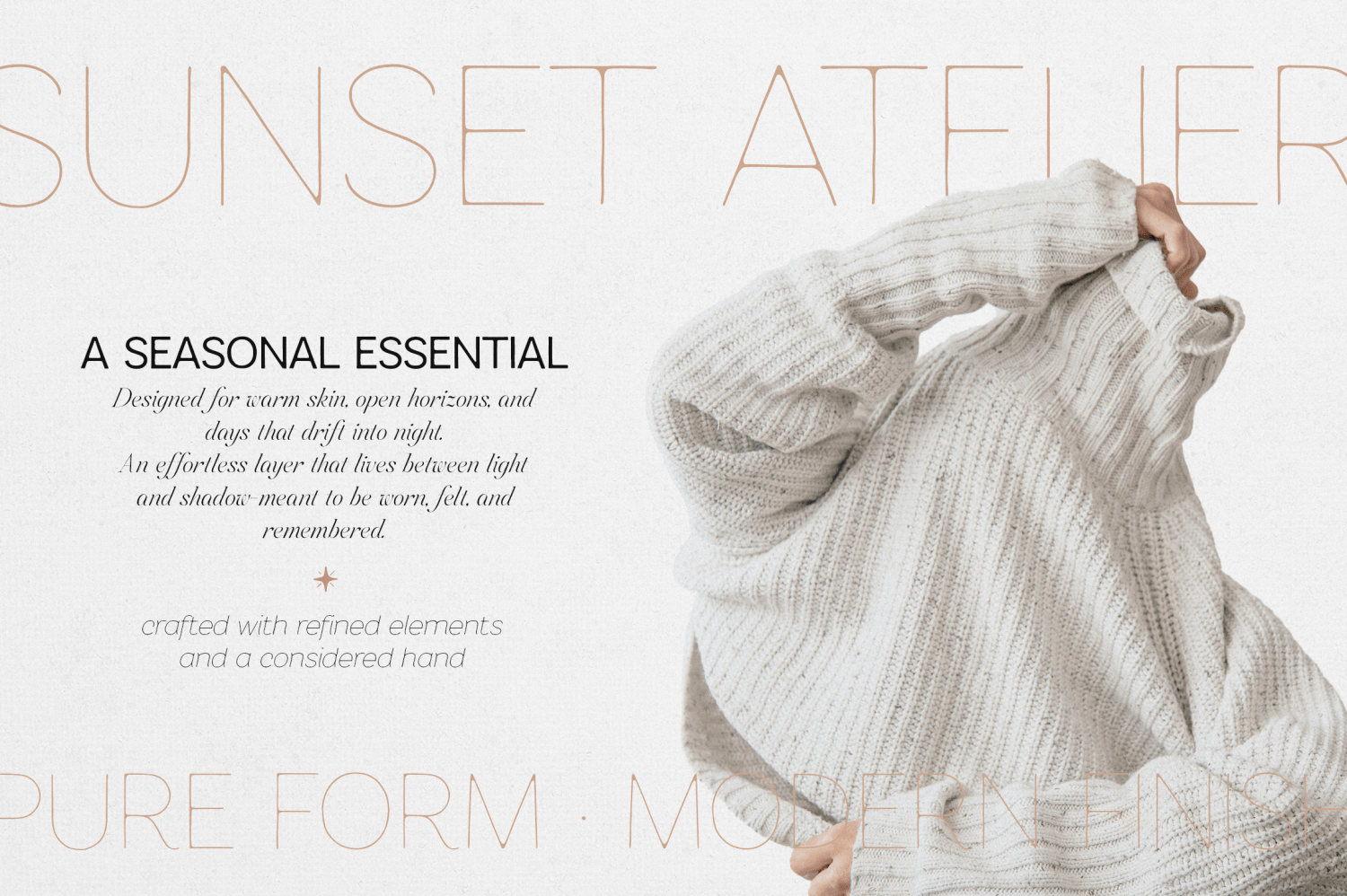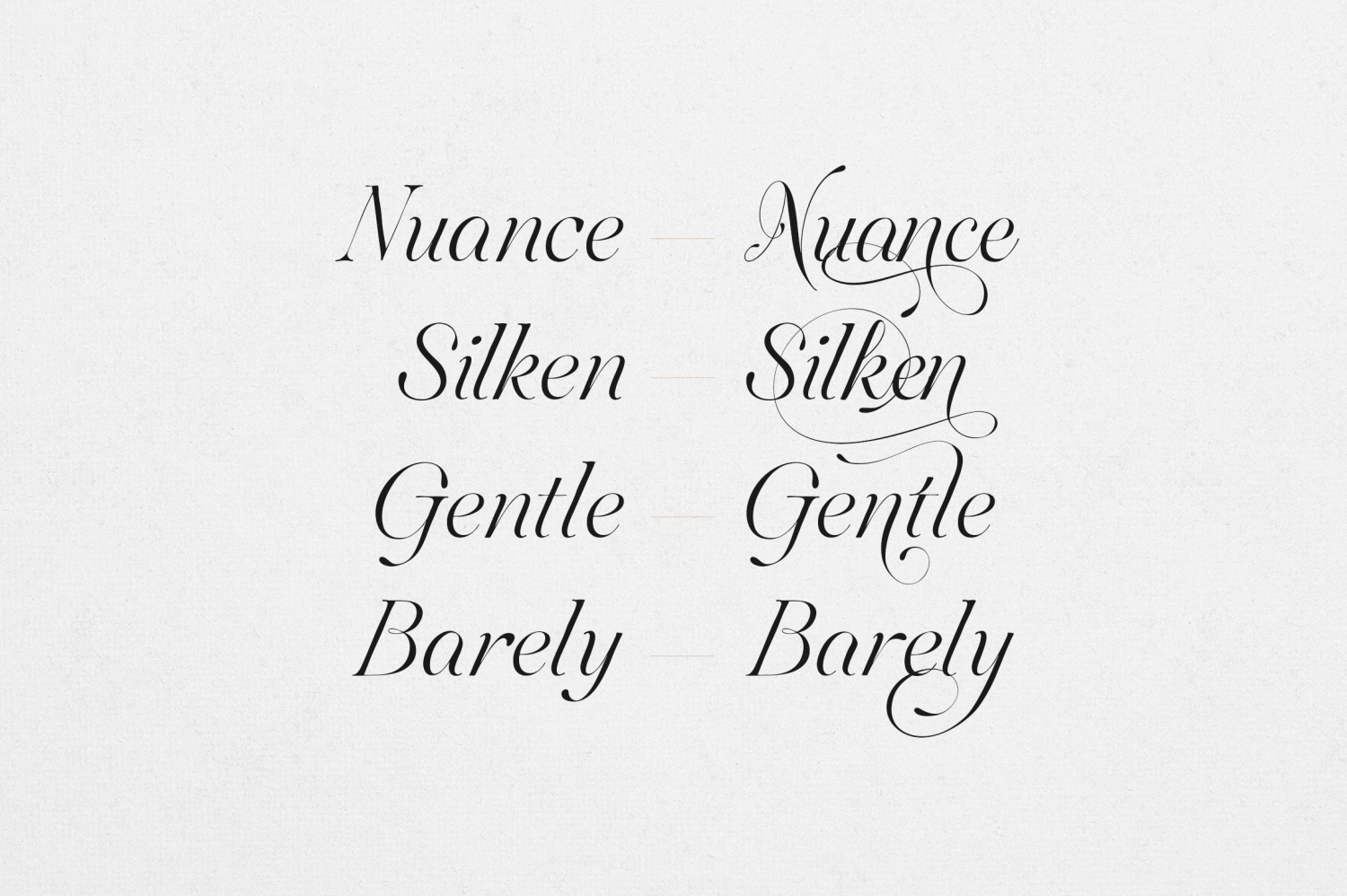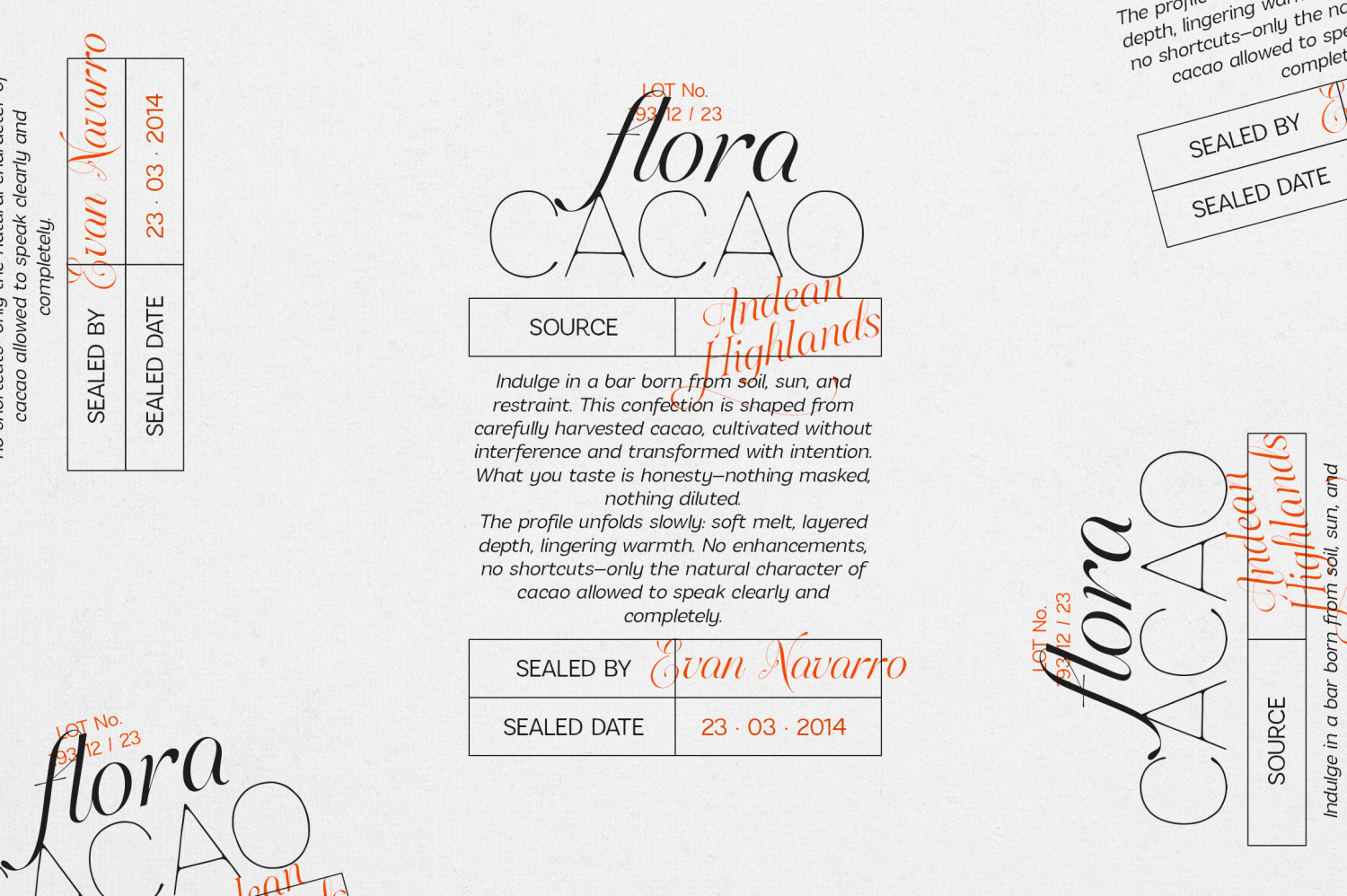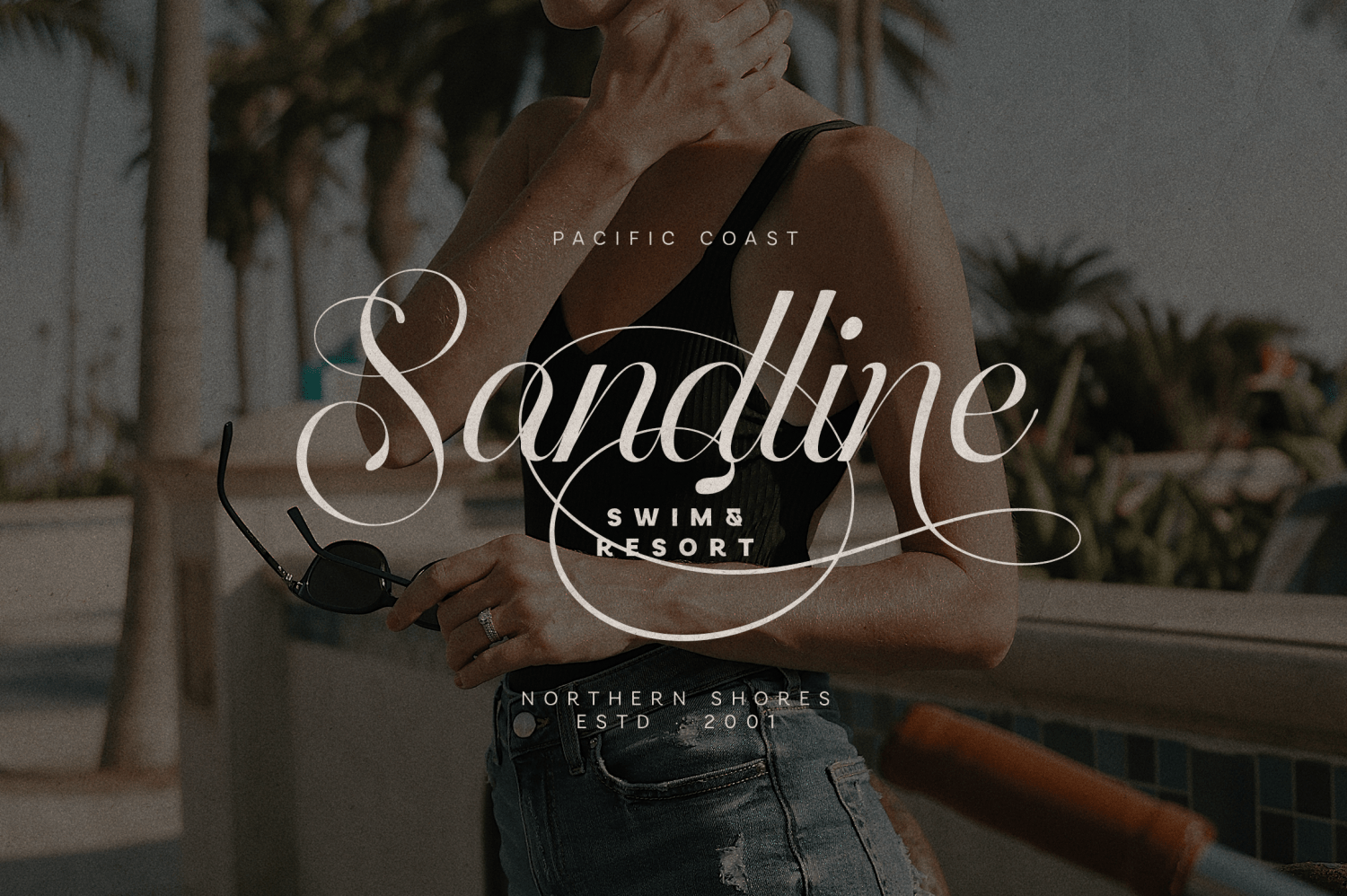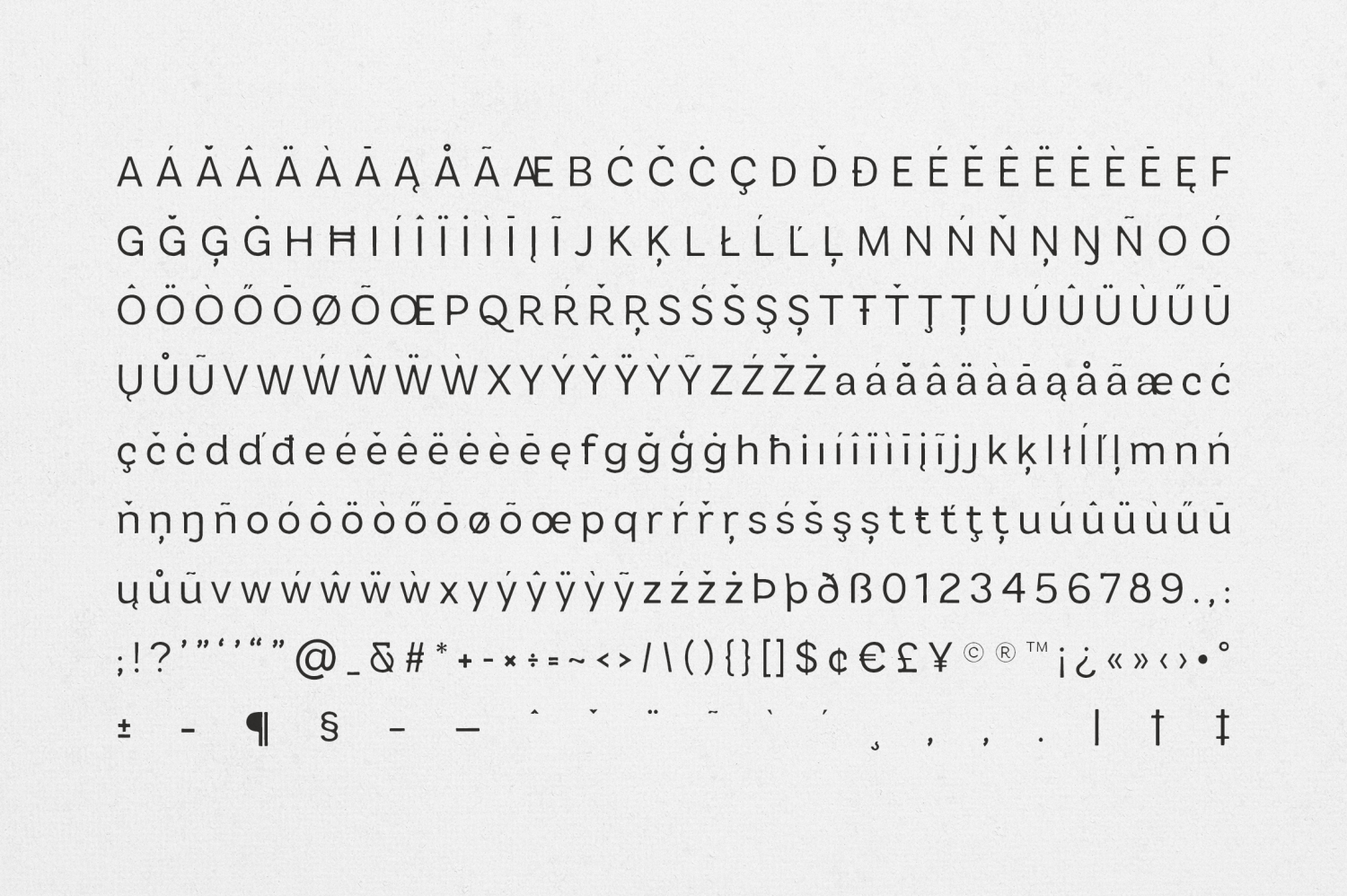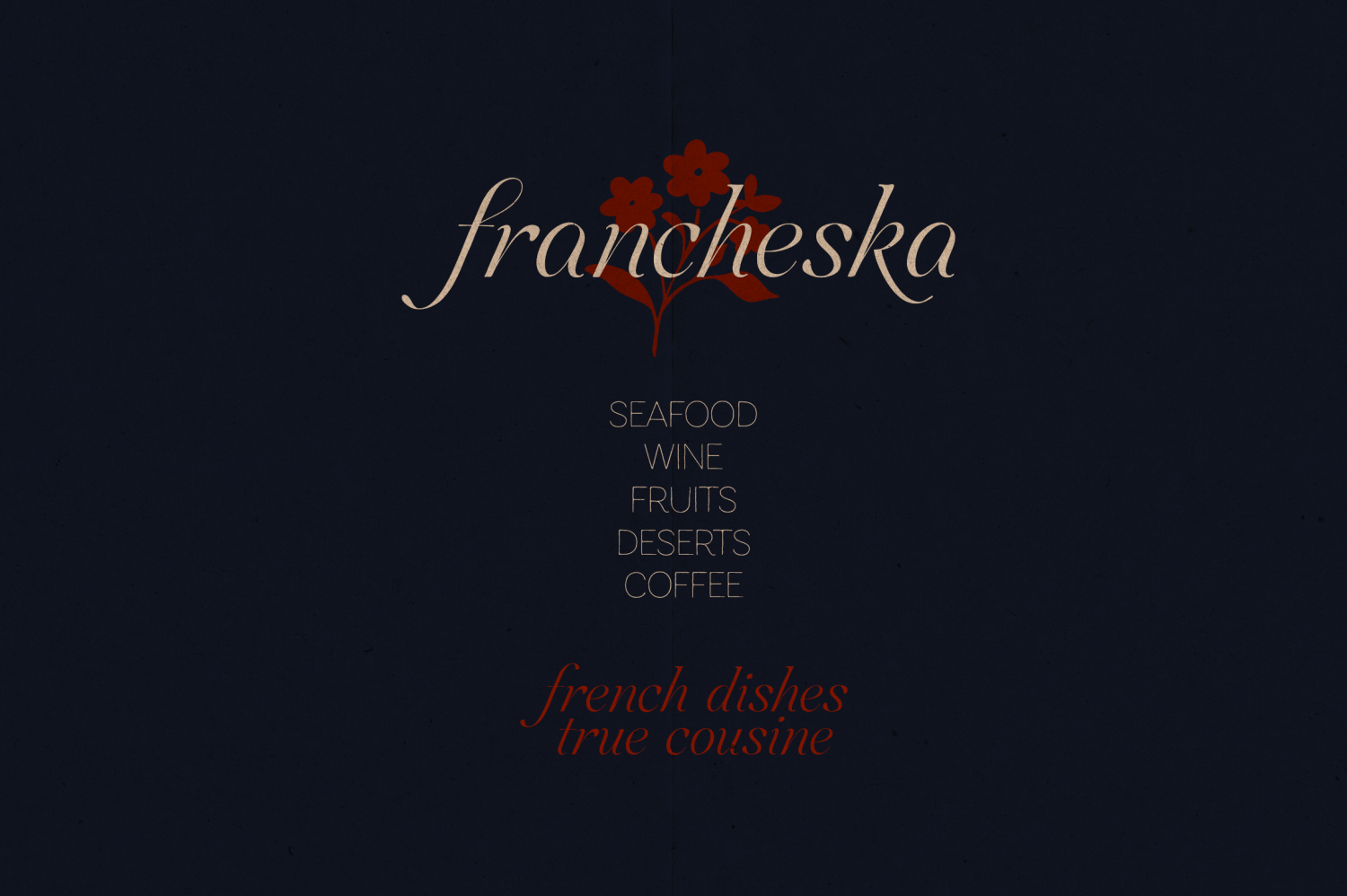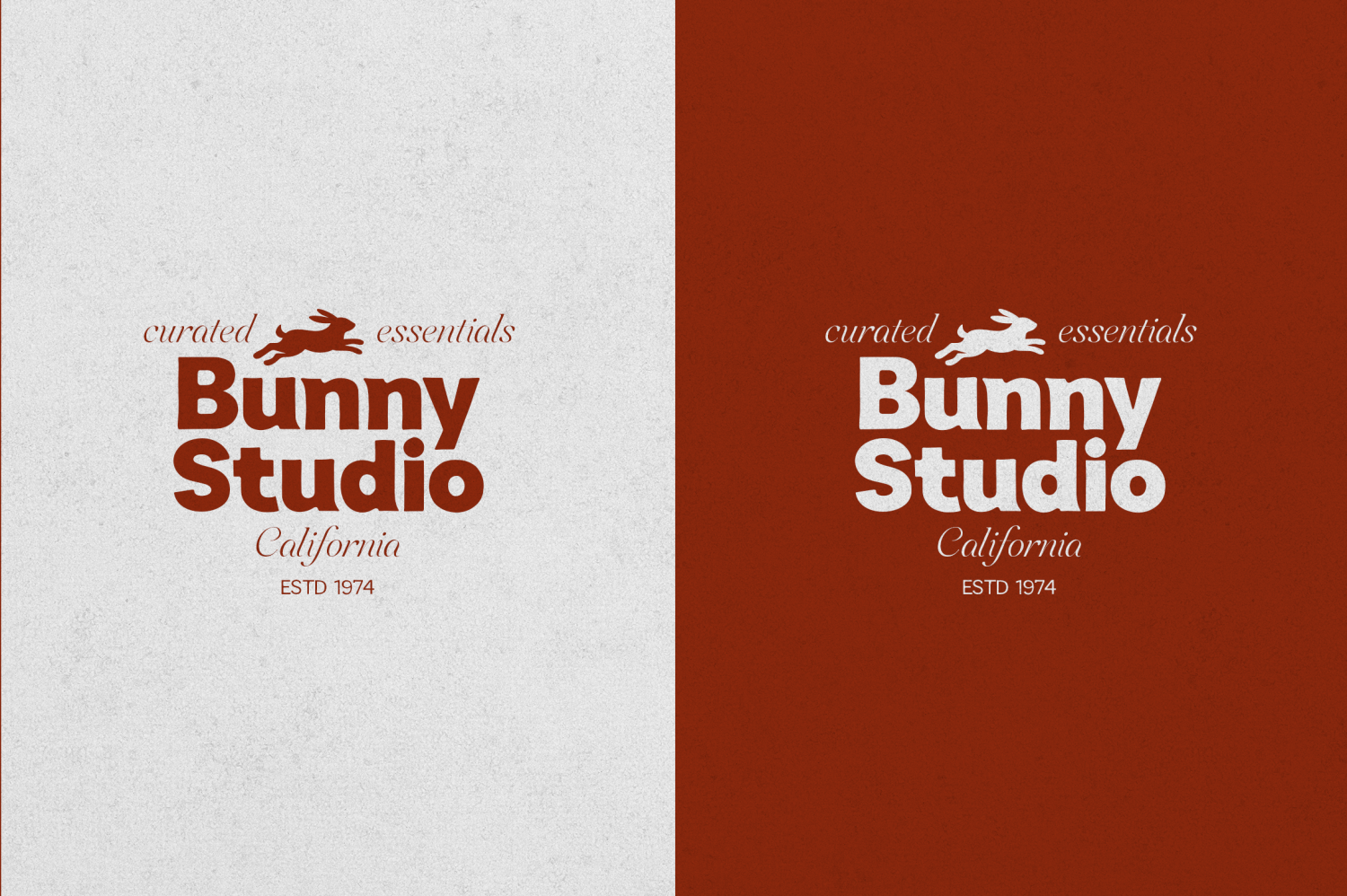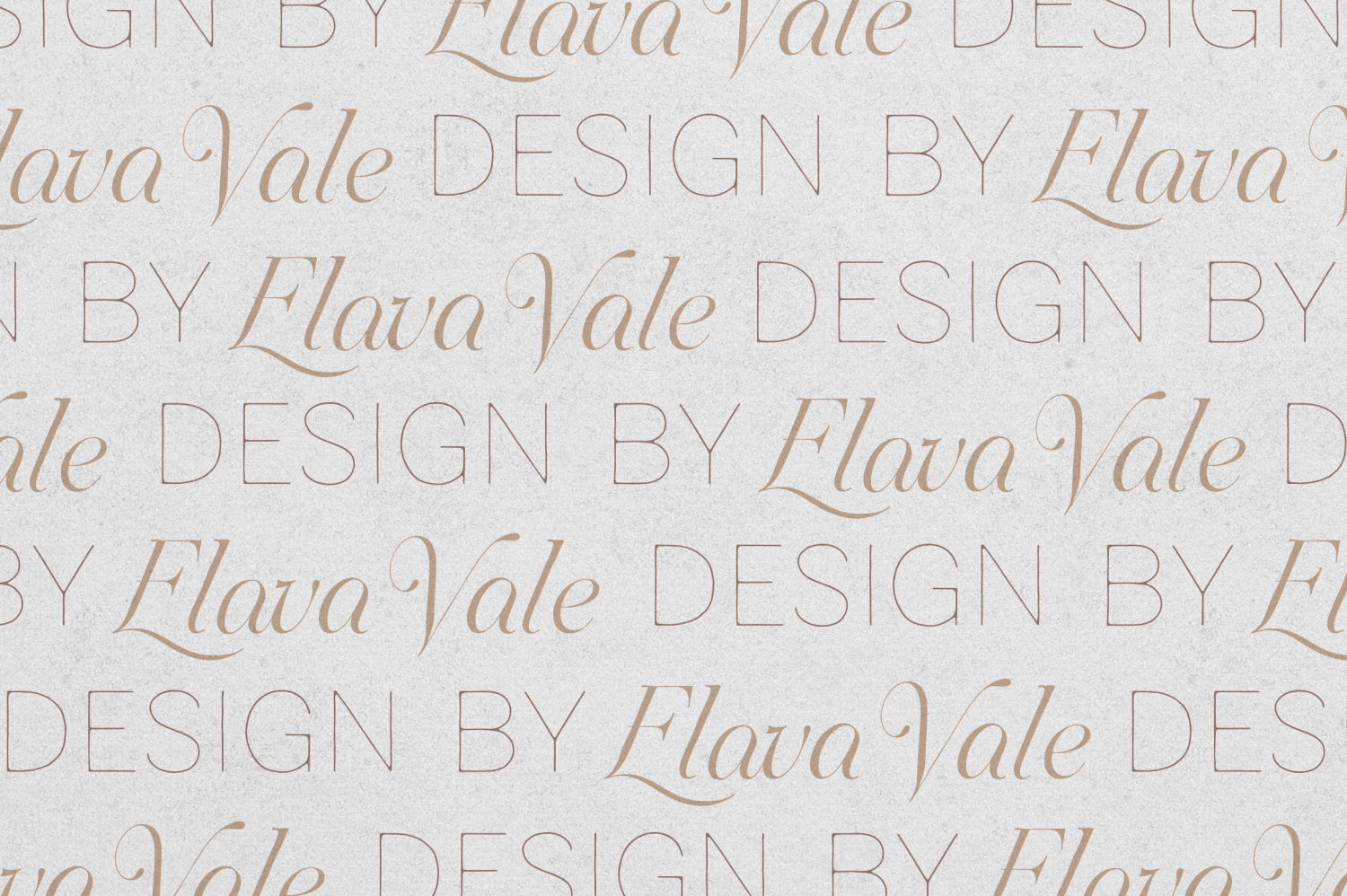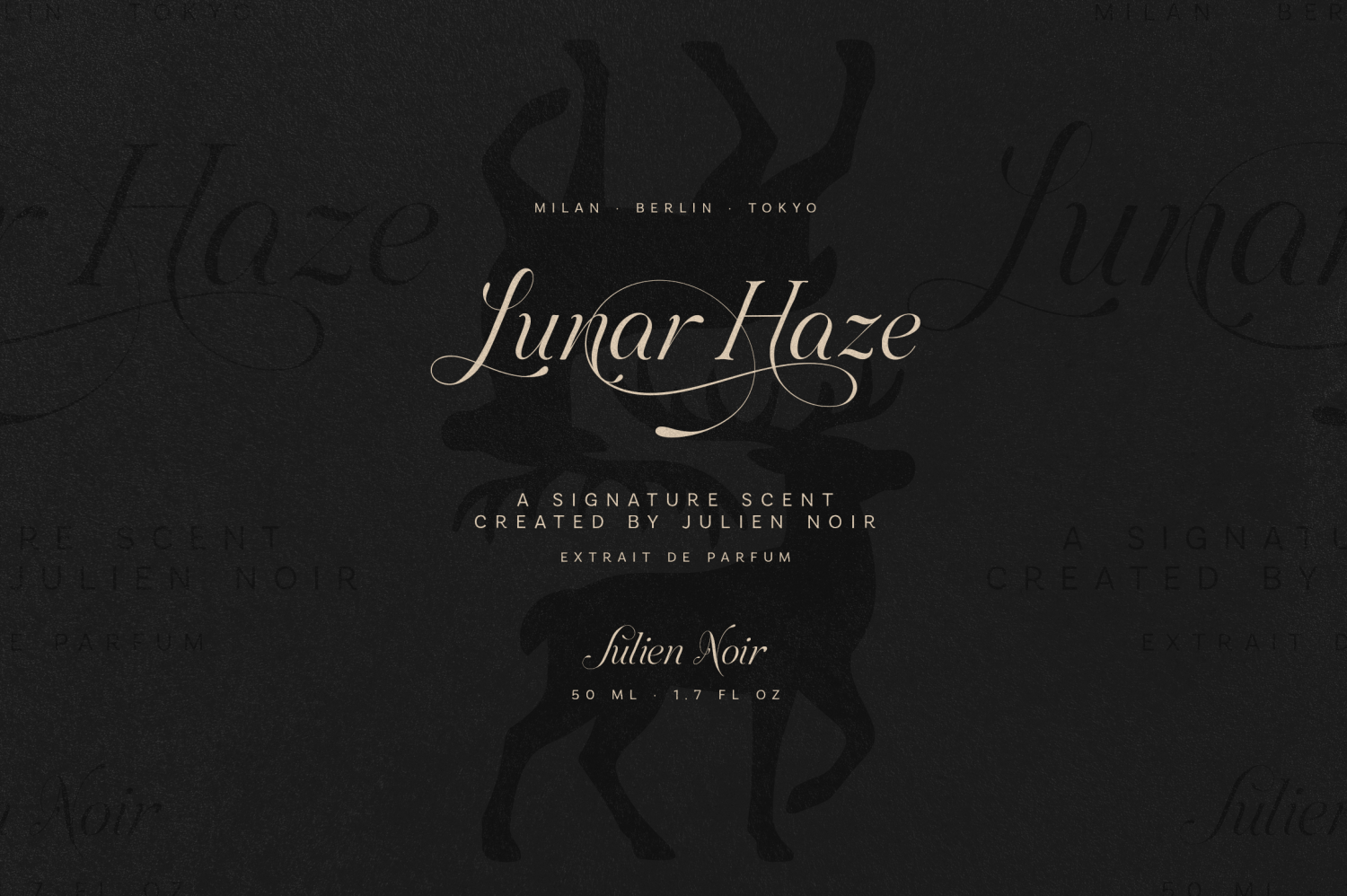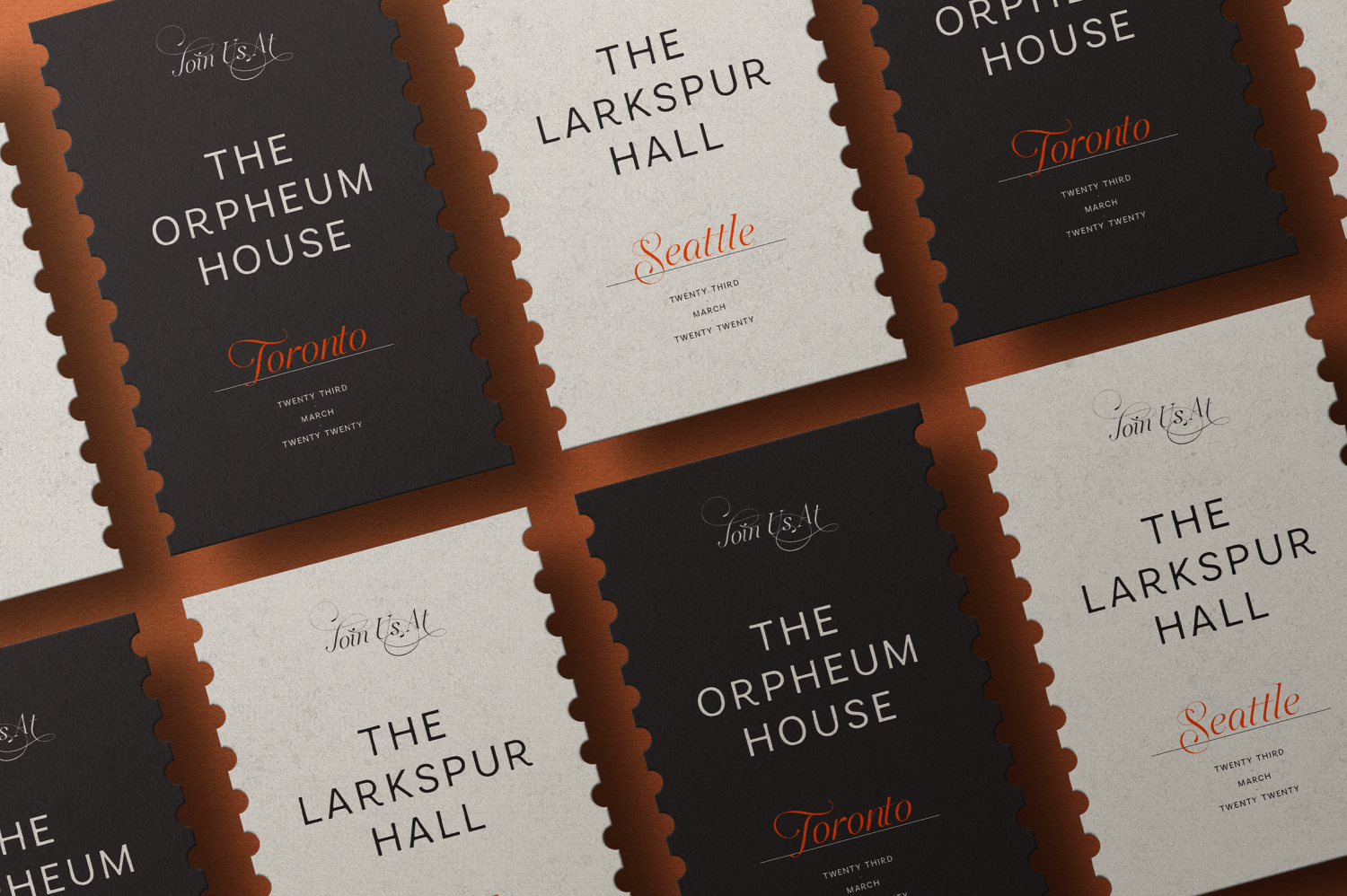
Sweetform
Sweetform is a refined, hand-crafted font family designed for modern brands that value warmth, elegance, and clarity. Blending expressive handwriting with structured simplicity, Sweetform gives you the freedom to create identities that feel both personal and professional.
At its core, Sweetform pairs a handwritten serif with organic movement and subtle contrast alongside a clean modern sans serif, creating a balanced typography system ideal for branding, editorial design, packaging, and digital use.
✦ What’s Included in Sweetform
Handwritten Serif
4 distinctive stylistic sets
Naturally flowing strokes with a human, organic feel
Ideal for logos, headlines, quotes, and statement typography
Sans Serif
3 versatile weights
Clean, modern, and highly legible
Perfect for body text, captions, layouts, and UI elements
26 Hand-Made Symbols
Custom-drawn icons and decorative elements
Designed to complement both fonts
Ideal for branding details, packaging, dividers, and storytelling
✦ Perfect For
Fashion & lifestyle branding
Editorial design & magazines
Logos & brand identities
Packaging & labels
Social media content
Websites & digital products
Wedding & event design
✦ Why Designers Choose Sweetform
A complete font duo system, not just a single typeface
Handwritten character balanced with modern structure
Multiple stylistic sets for creative flexibility
Works beautifully across print and digital
Designed to feel timeless, warm, and intentional